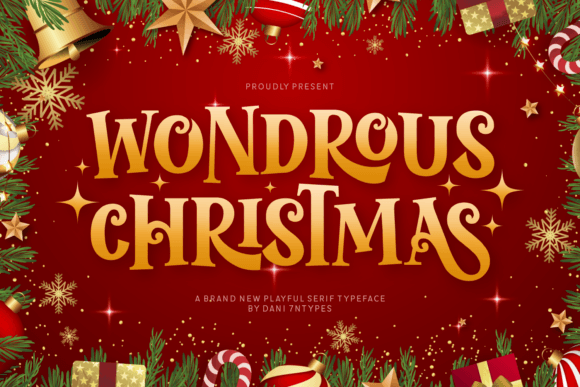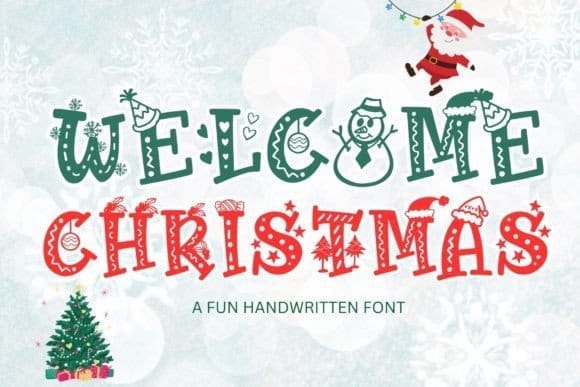
The holiday season is just around the corner, and it's time to get into the festive spirit! From twinkling lights to joyful carols, Christmas brings a unique kind of magic—and one of the best ways to capture that holiday charm is through Christmas fonts.
Whether you're designing Christmas cards, creating festive social media posts, or putting together a holiday-themed project, the right font can make all the difference. In this post, we’ll explore 10 of the best Christmas fonts that will add warmth and cheer to your designs. Let’s dive into these delightful fonts that perfectly embody the joy of the season!
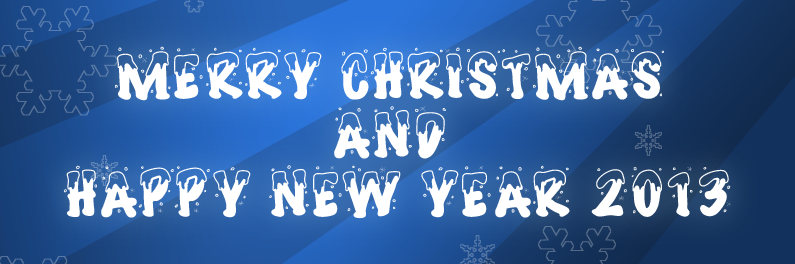
PW Joyeux Noel is a charming and festive Christmas font that evokes the spirit of the season. Its playful, handwritten style adds a touch of whimsy to any holiday project. With its snowy texture and decorative elements, this font is perfect for creating festive invitations, cards, and other Christmas-themed designs. 100% free on Dafont.
Christbell is a festive and elegant Christmas font with a classic, bell-like character. The all-caps design makes a bold statement, while the smooth curves and clean lines give it a touch of sophistication. This font is perfect for creating Christmas invitations, cards, and other holiday projects that need a touch of class.
Present Snow is like a cozy winter wonderland all wrapped up into a font! This super cute font has a soft, fluffy snowball kind of feel with a touch of sparkle. It's perfect for making your Christmas projects look adorable, like those cute Christmas cards you write to your friends and family.
Christmas Sounds is a playful and festive font that captures the joy and excitement of the holiday season. It's perfect for anyone who wants to add a touch of whimsy and personality to their Christmas projects. With its quirky and fun design, Christmas Sounds is sure to make your invitations, cards, and other holiday creations stand out. And the best part? It's completely free to use!
The Christmas Beauty Day font is like a festive hug for your holiday projects! With its elegant, hand-written style and lovely flourishes, it brings a warm, personal touch to any design. The decorative swirls on the capital letters add a dash of festive charm, making it perfect for Christmas cards, invitations, or any seasonal craft. Imagine your holiday greetings adorned with this beautiful script, set against a vibrant red background with sprigs of greenery and berries—it’s pure Christmas magic!
The Christmas Glooves font is a delightful addition to your holiday design toolkit! This modern script font has a playful yet elegant vibe, perfect for adding a touch of festive cheer to your projects. The cursive, flowing letters are ideal for crafting, branding, and even t-shirt designs. Imagine your holiday greetings or logos adorned with this charming script, set against a deep red background with a sprig of holly—it’s pure Christmas joy!
It's like a Christmas party invitation got stuck in a calligraphy pen! The letters are all fancy and swirly, with little lights and ornaments sprinkled around. It's festive, fun, and perfect for adding a touch of holiday cheer to anything from gift tags to invitations.
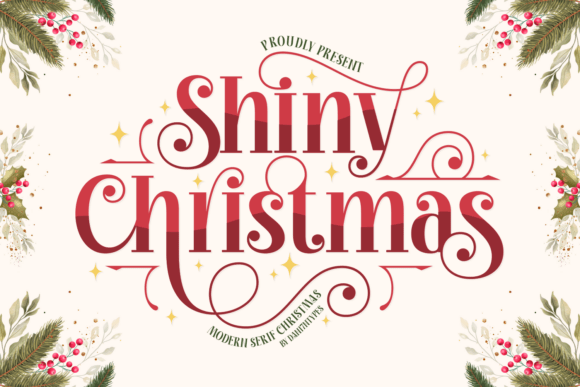
If you want your projects to truly sparkle this holiday season, you have to check out Shiny Christmas! This font is a beautiful blend of modern and festive, giving you a gorgeous modern serif typeface that was crafted specifically for Christmas. It features these lovely, elegant curves and those charming, celebratory swashes and decorative alternates that really make the text feel special and magical. With its smooth contrast and playful ornament details, it makes every word feel like a celebration. Whether you're designing beautiful Christmas cards, unique gift packaging, or even branding for a winter event, this font brings all the warm, joyful, and magical winter vibes you could ask for.
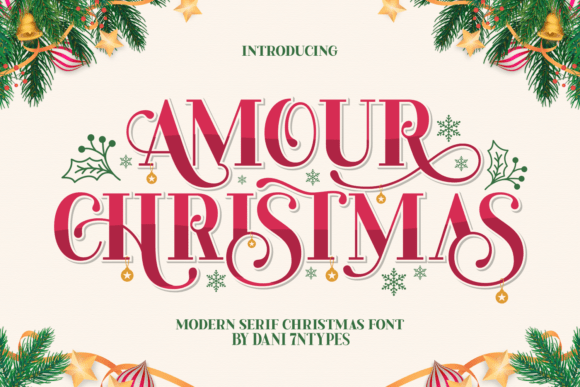
If you want your Christmas projects to have that perfect mix of elegance and cheer, you simply must try Amour Christmas! This font is a beautiful, festive display serif that is guaranteed to add a truly joyful charm to whatever you're creating. It has a luxurious serif base combined with whimsical swashes and playful ornaments, giving it a unique blend of classic beauty and cheerful flair.
It’s just perfect for all your holiday designs, whether you're making fancy Christmas cards, lovely social media posts, or designing seasonal packaging and branding. Plus, it's PUA-encoded, which means you can easily access all those gorgeous swashes, alternate characters, and extra glyphs to make your holiday messages feel truly magical and full of Christmas spirit!
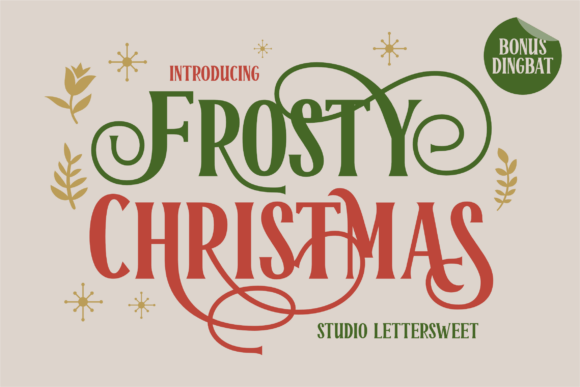
Say hello to Frosty Christmas, a font that just oozes timeless holiday magic! This typeface is both festive and elegant, capturing that wonderful Christmas spirit with its decorative swirls and vintage-inspired serifs. If you want your designs to feel warm, joyful, and truly enchanting, this is a fantastic choice. Plus, it comes with extra embellishments and a bonus dingbat set, adding a playful touch to your projects and making them even more memorable! It's a gorgeous font that brings classic charm to all your holiday cards and creations.